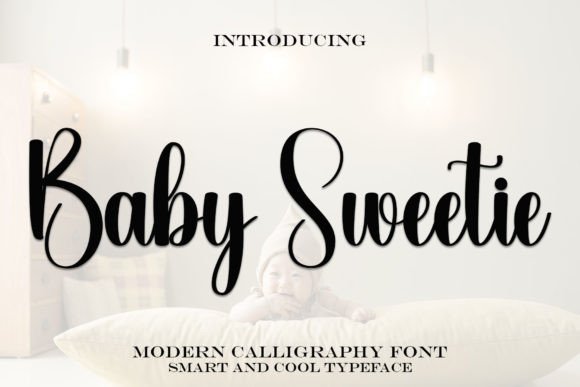
There’s nothing quite like the feeling of curling up with a cup of hot cocoa, surrounded by twinkling lights and festive decorations, as the holiday season descends upon us. And what better way to capture the magic of this time of year than with a font that embodies the spirit of joy and cheer?
Meet Baby Sweetie Font, a delightful and charming typeface that adds a touch of whimsy to your holiday designs. With its decorative elements and unique flair, Baby Sweetie Font is the perfect companion for greeting cards, gift labels, and holiday-themed projects that demand a festive touch. And with its PUA coding, designers can easily access all the amazing glyphs and ligatures that make this font truly special.
Baby Sweetie Font Key Features
- Unique Characteristics: Hand-drawn, cursive, and whimsical design with intricate details and flourishes
Baby Sweetie Font Review
Overall, I have mixed feelings about the Baby Sweetie Font. On one hand, it’s a lovely, cursive script that’s perfect for creating a whimsical and feminine feel in your designs. ✨ The font is great for children’s products, baby-related items, or any project that needs a touch of sweetness.
Here are some things that work well in this font:
- ✨ Unique and playful style that’s perfect for children’s products or baby-related items
- ✨ Easy to read, even in smaller font sizes
- ✨ Supports a wide range of languages, making it a versatile choice for international designs
- ⚠️ Limited font sizes and styles available, which may limit its versatility in certain designs
- ⚠️ May not be suitable for formal or professional projects, as it has a more playful feel
- ⚠️ Some characters may not render properly in certain applications or operating systems
Overall, I think the Baby Sweetie Font is a great choice for certain types of projects, but it may not be the best fit for every design. With its unique style and playful feel, it’s perfect for creating a whimsical and feminine touch in your designs.
Use “Baby Sweetie Font” for baby-related designs, such as nursery decor, baby shower invitations, and children’s books.
Use “Baby Sweetie Font” for:
- Baby shower invitations
- Nursery decor
- Children’s books
- Personalized baby gifts
Compared to Baby Sweetie Font, Carolyna Pro Font has a more formal, sophisticated look that’s suitable for high-end designs. While Baby Sweetie Font is often used for feminine, delicate designs, Carolyna Pro Font is more elegant and refined.
Unique Projects Using Baby Sweetie Font
Cute Baby Shower Invitations
Create adorable baby shower invitations featuring the Baby Sweetie Font. This font is perfect for adding a playful and whimsical touch to your invitations.
How to use: Set the Baby Sweetie Font as the main font for your invitation text. Use a bold font weight for the title and a regular font weight for the details.
Yes, the Baby Sweetie Font is fully editable, allowing you to customize the font to fit your specific design needs. You can use font editing software such as FontLab or Glyphs to make changes to the font’s design and metrics.
Q: What is the character set for the Baby Sweetie Font?
The Baby Sweetie Font includes a comprehensive character set that includes Latin, Cyrillic, and Greek alphabets, as well as punctuation and symbol characters. This allows designers to use the font for a wide range of languages and applications.